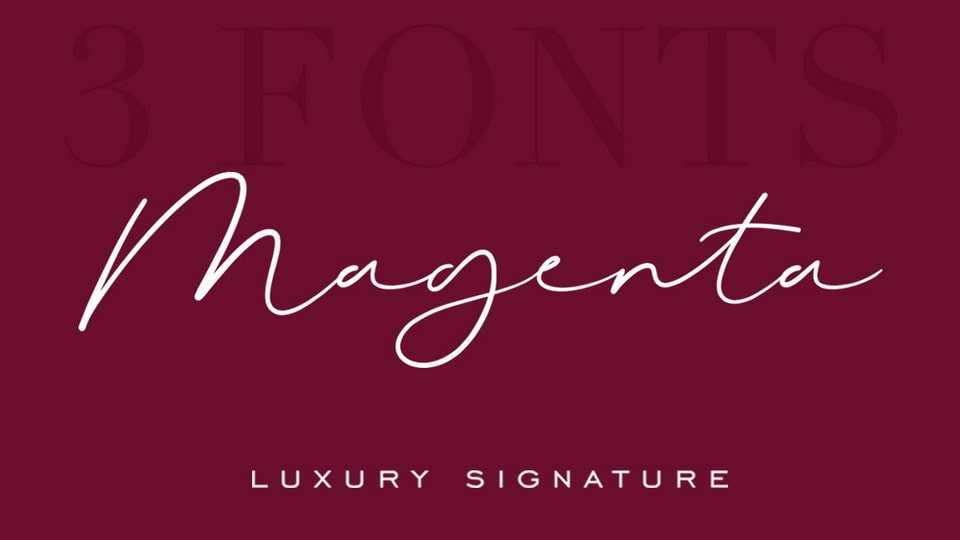
Download Magenta font, a luxurious and carefree signature script typeface that was lovingly created by hand. This font is perfect addition to the professional designers font.